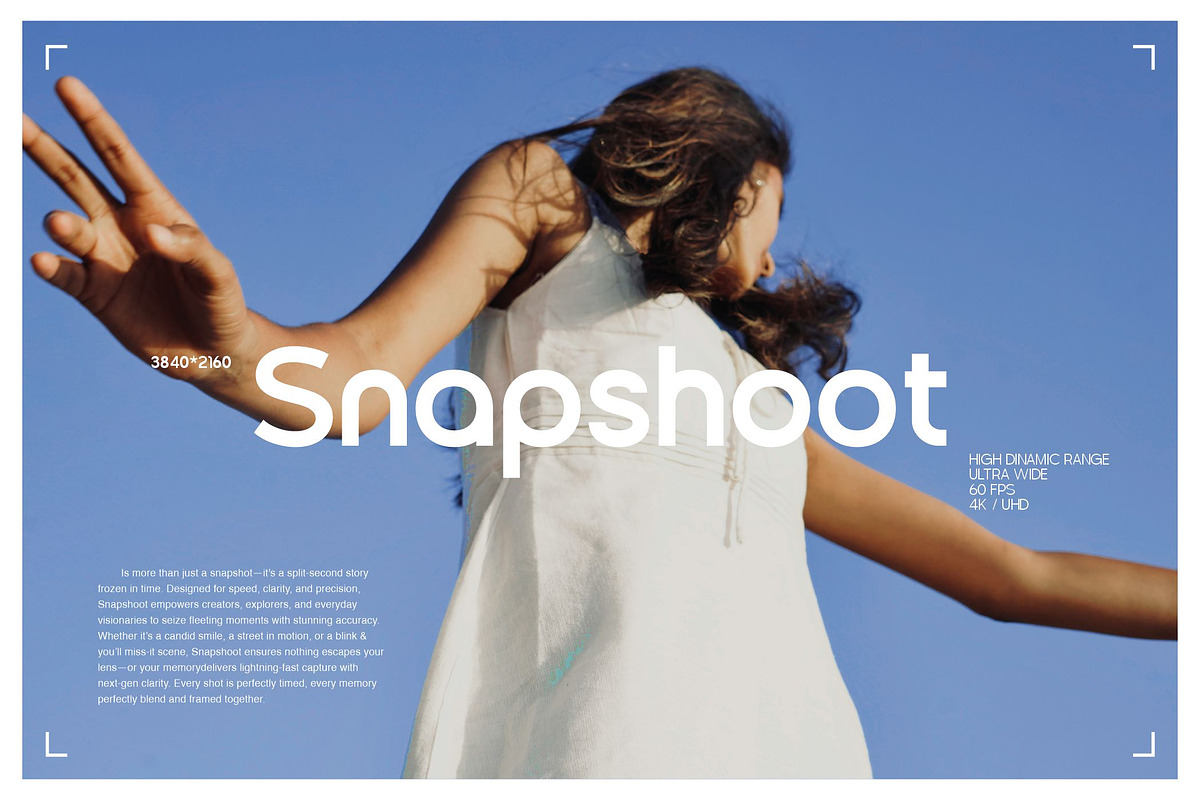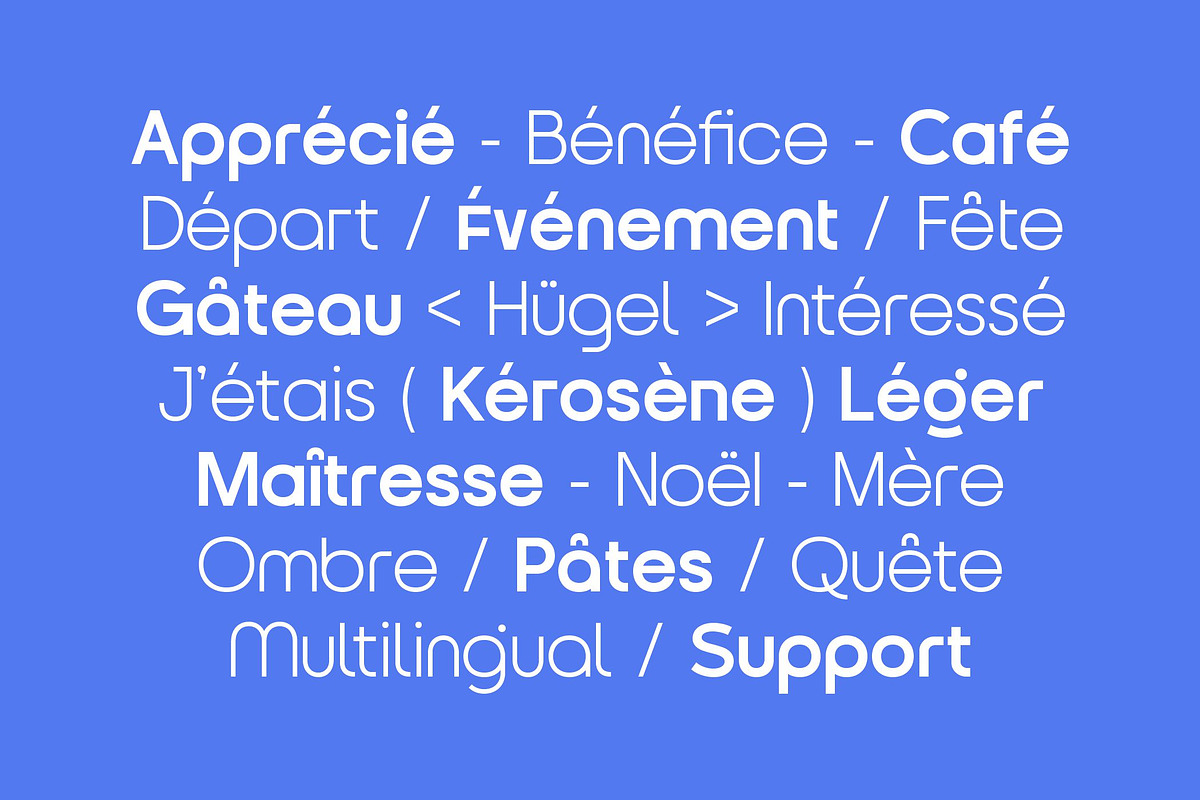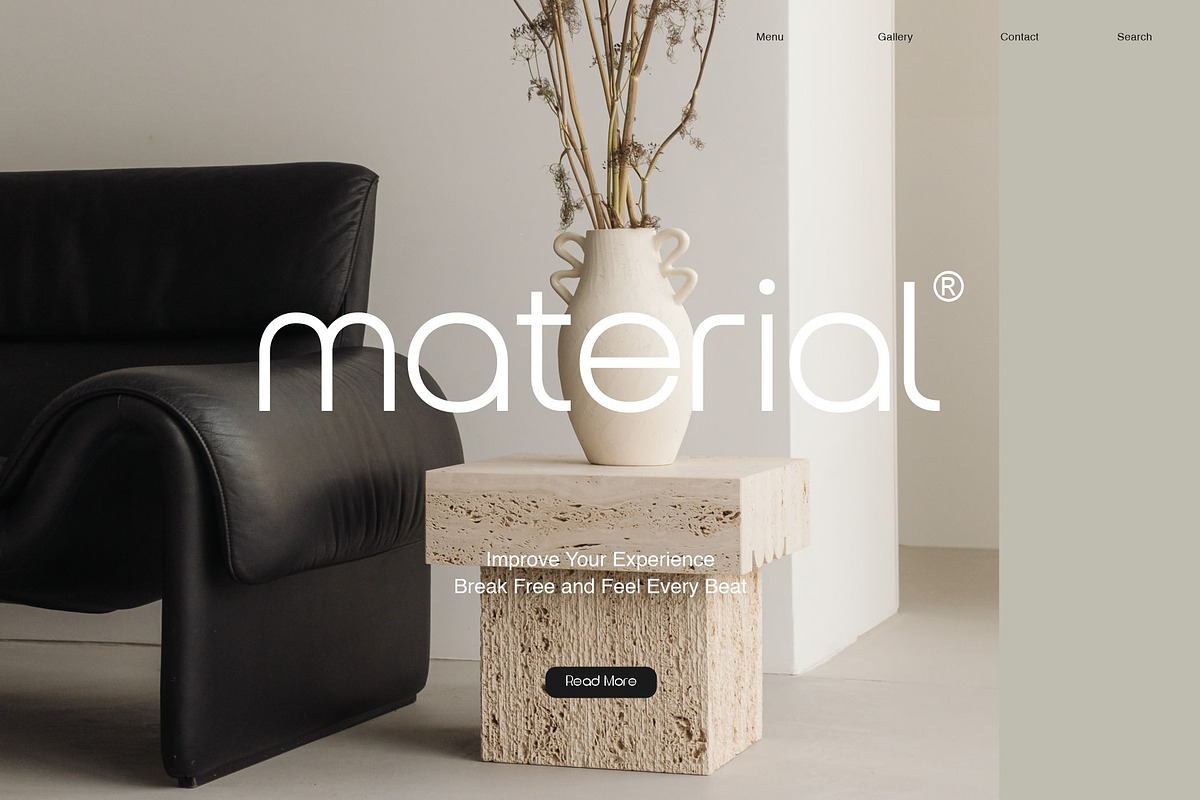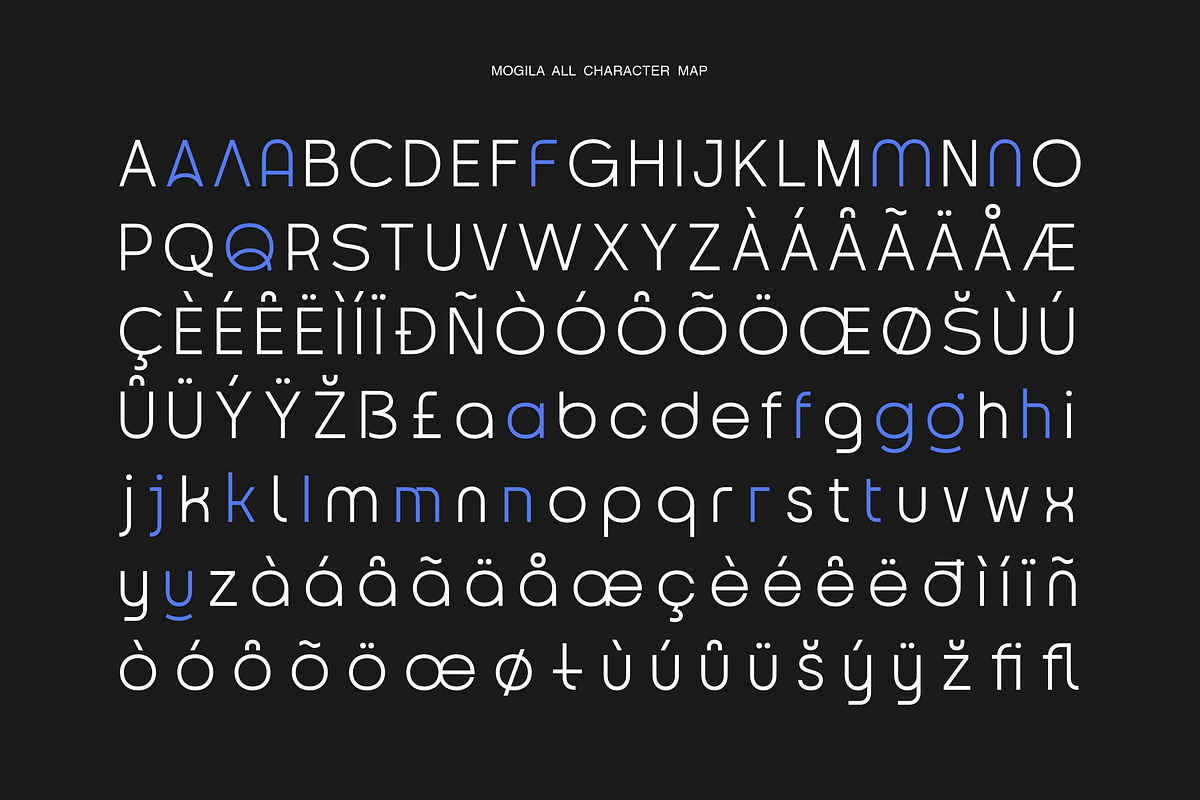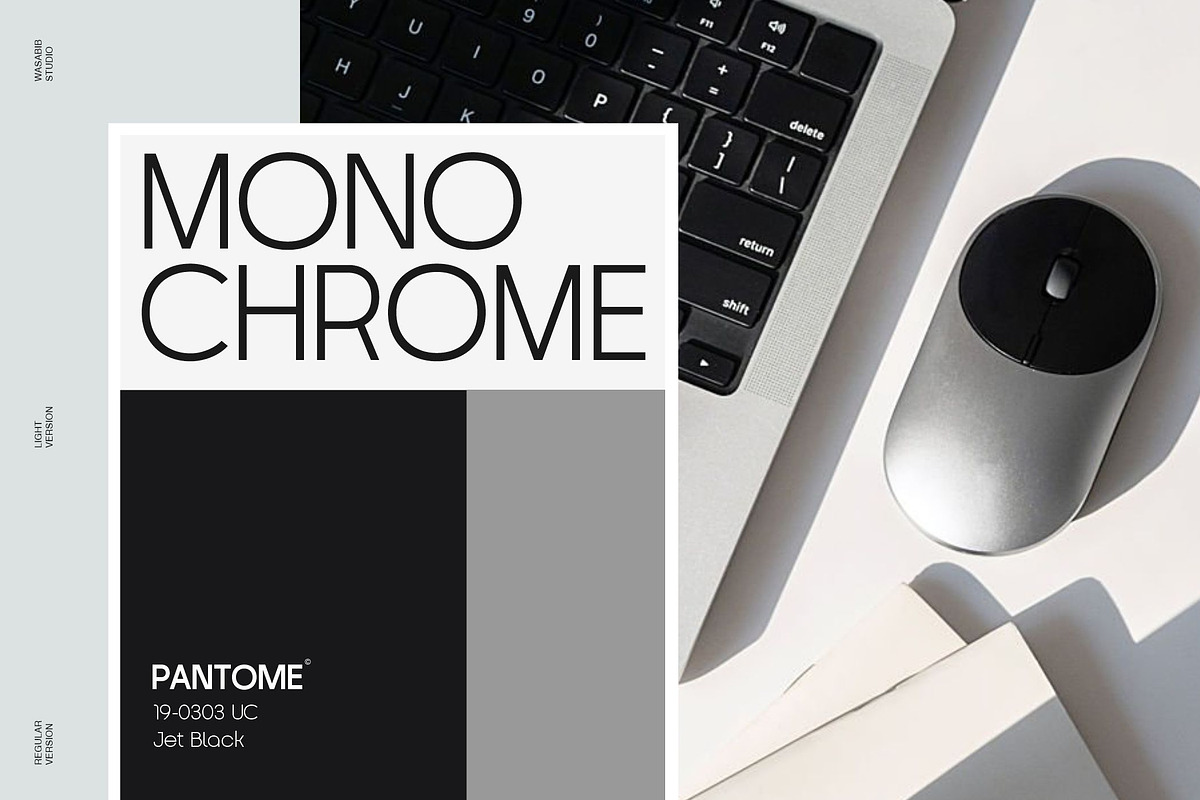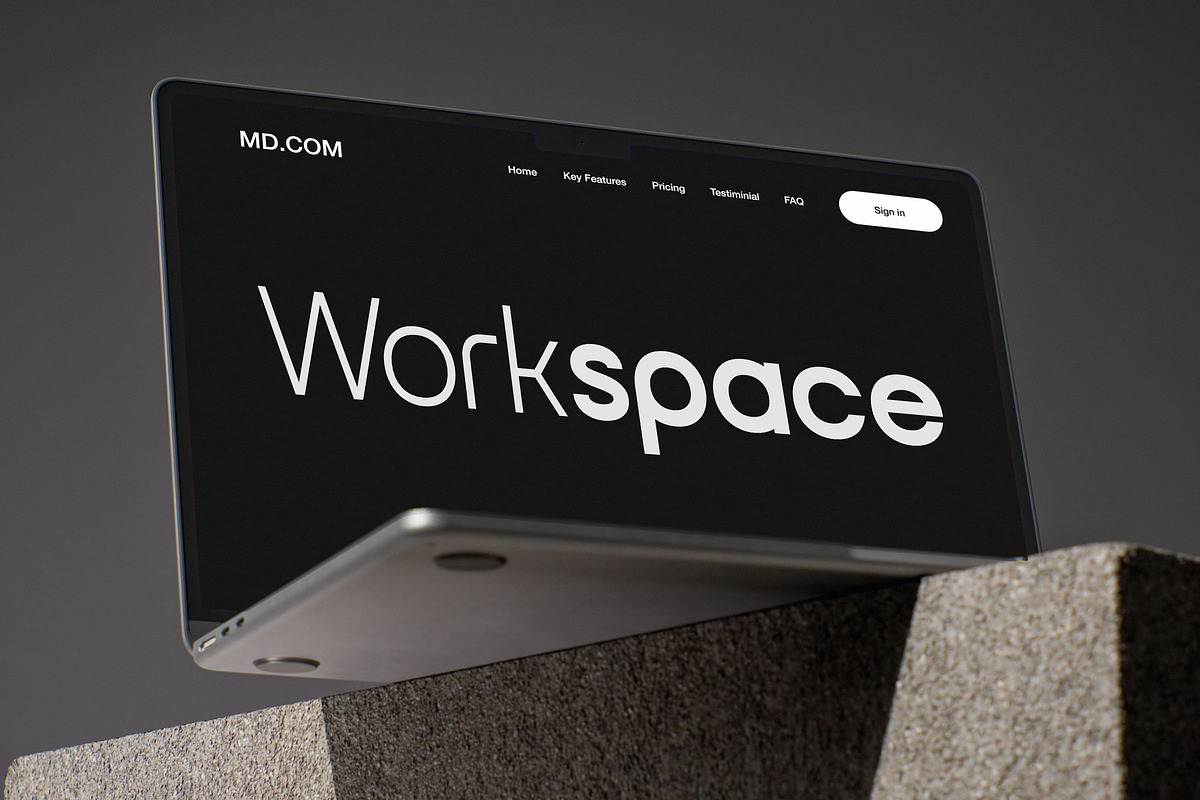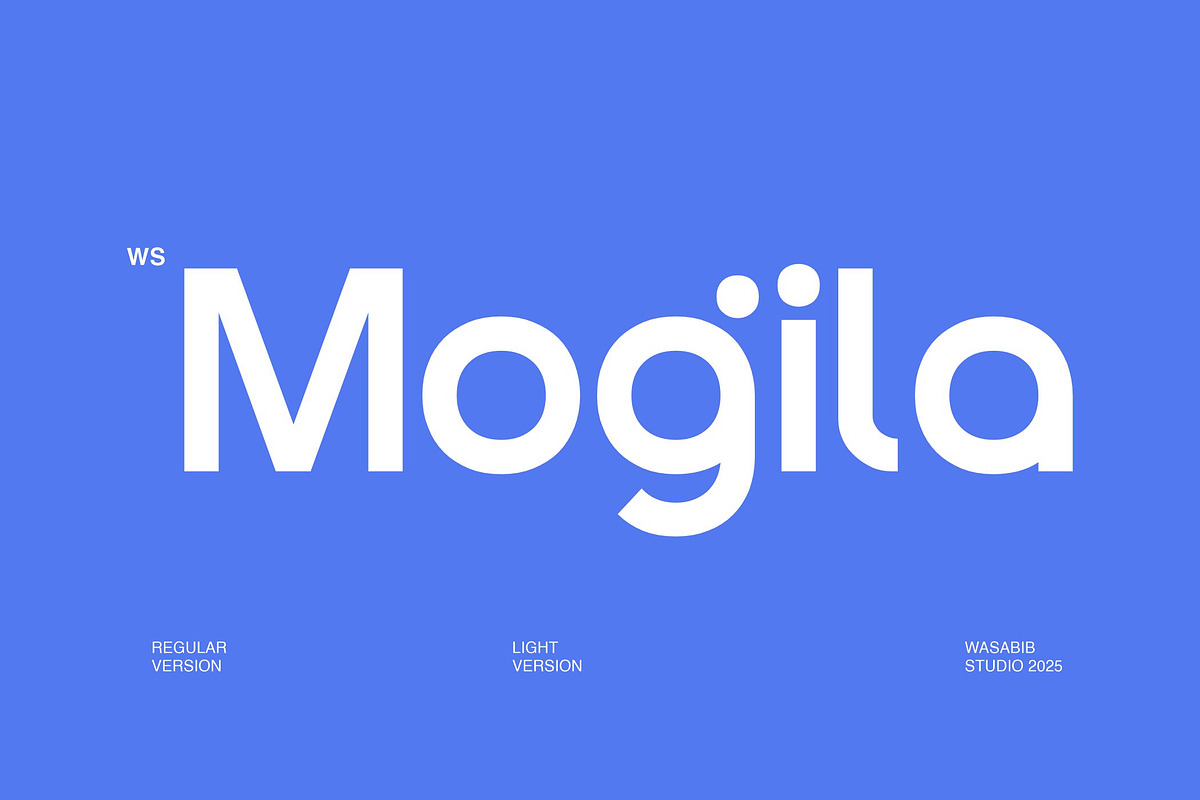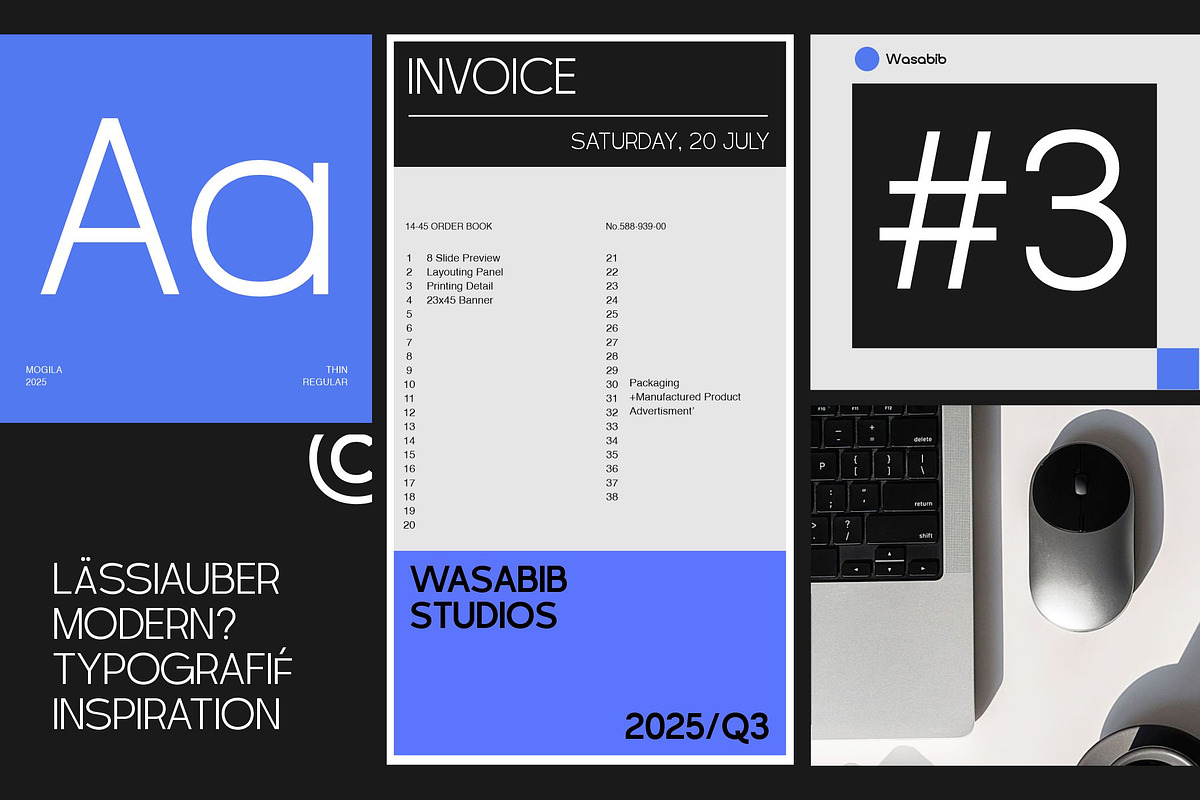
WS Mogila
The "Mogila" font exudes a clean, modern, and elegant aesthetic, making it an ideal choice for logo and branding purposes. With two weight options, Regular and Light, this font offers versatility and sophistication. Its sleek and minimalistic design allows for seamless integration into various design projects, ensuring a polished and professional outcome.
Uppercase Lowercase numeric & Multilingual support Ligatures Stylistic Alternates with Ss01, Ss02, Ss03